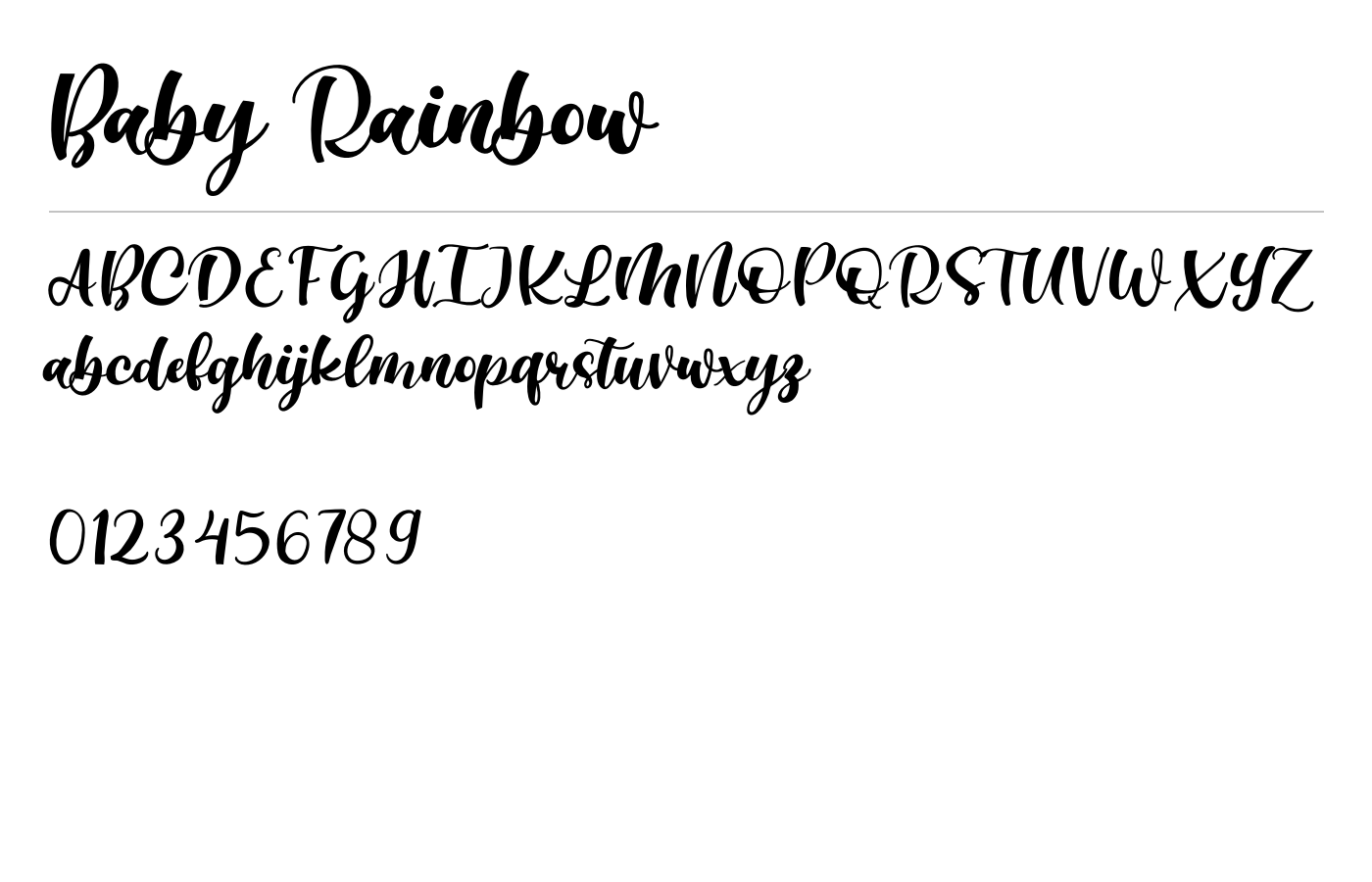
Baby Rainbow is a lively script font with smooth, flowing strokes that blend elegance with a playful charm. Its casual yet stylish letterforms work beautifully for creative branding, invitations, and any design aiming for a friendly, handcrafted feel. This font shines in headlines and logos where a personal, warm touch is needed.
Baby Rainbow Font
About Baby Rainbow Font
| Font family | Baby Rainbow Font |
| Designer | Risca Anitawati |